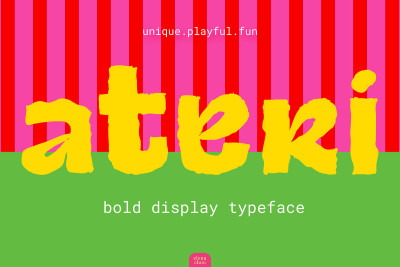
Ateri - Wiggly Bold San Serif Font
Ateri - Wiggly Bold San Serif brings a confident, polished presence to any design, from business materials to creative campaigns.
Its proportions suit a wide range of uses: website headers, printed flyers, restaurant menus, annual reports, and product packaging.